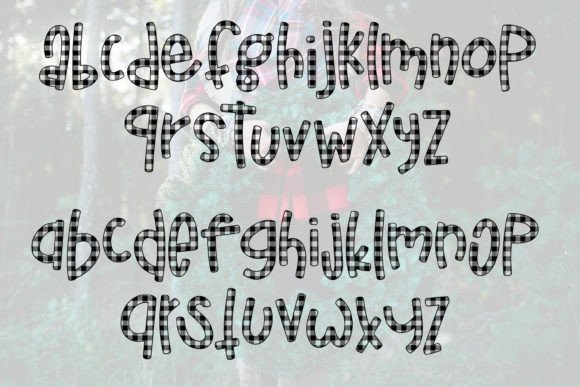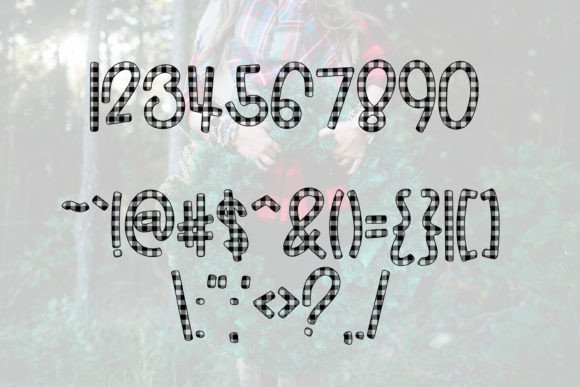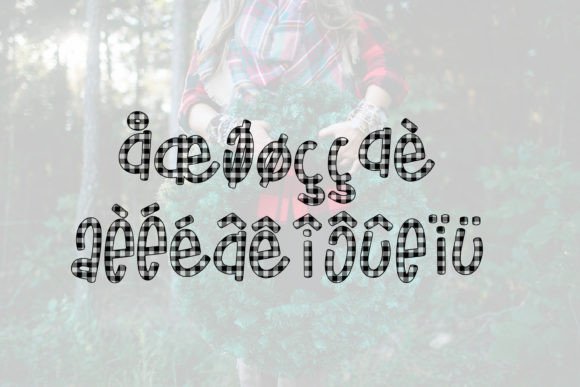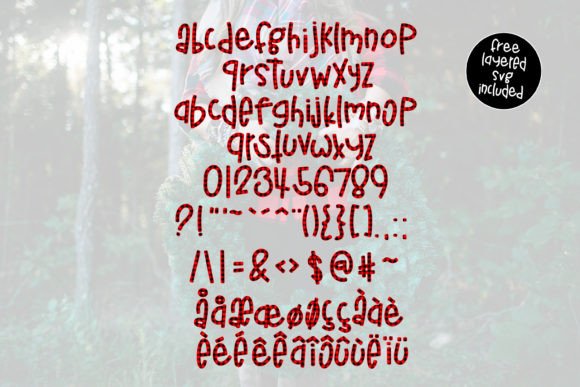
Introducing Buffalo Jane Font: The Ultimate Plaid Companion for Designers and Crafters
Are you ready to add a touch of rustic charm to your designs? Look no further than Buffalo Jane, a delightful plaid font that embodies the warmth and coziness of the great outdoors. Inspired by classic buffalo plaid patterns, this charming font is perfect for winter projects, holiday designs, and anything that needs a dash of festive flair.
The Story Behind Buffalo Jane
Buffalo Jane is more than just a font – it’s an experience. Imagine wrapping up on a cold winter night, surrounded by the warmth and comfort of a crackling fireplace. The buffalo plaid pattern, a timeless classic, has been reimagined as a playful font that’s sure to bring a smile to your face. With Buffalo Jane, you can infuse your designs with the spirit of the season, adding a touch of whimsy and personality to your work.
What Makes Buffalo Jane So Special?
So, what sets Buffalo Jane apart from other fonts? Here are just a few reasons why designers and crafters are falling in love with this charming plaid font:
• Unique Plaid Pattern: Buffalo Jane features a distinctive buffalo plaid pattern that’s both classic and modern. The font’s design is carefully crafted to evoke the feeling of warmth and coziness, making it perfect for winter and holiday-themed projects.
• Playful and Festive: This font is designed to bring a touch of playfulness and festivity to your designs. Whether you’re creating holiday cards, apparel, or craft projects, Buffalo Jane is sure to add a dash of personality and whimsy.
• Rustic Charm: Buffalo Jane has a distinctly rustic feel that’s perfect for designers and crafters who love the great outdoors. The font’s rugged, homespun quality makes it ideal for projects that require a touch of country charm.
• Versatile: Buffalo Jane is incredibly versatile, making it suitable for a wide range of projects. From holiday designs to winter-themed crafts, this font can be used to add a touch of personality to your work.
Using Buffalo Jane in Your Designs
So, how can you use Buffalo Jane in your designs? The possibilities are endless! Here are a few ideas to get you started:
• Holiday Cards: Add a touch of festive flair to your holiday cards with Buffalo Jane. The font’s playful plaid pattern is perfect for Christmas, Hanukkah, or any other winter holiday.
• Apparel: Buffalo Jane is a great choice for designing apparel, such as t-shirts, hoodies, or hats. The font’s rustic charm and playful personality make it perfect for winter-themed designs.
• Craft Projects: If you’re a crafter, Buffalo Jane is a great addition to your design toolkit. Use the font to add a touch of personality to your craft projects, such as knitting patterns, sewing projects, or scrapbooking.
• Winter-themed Designs: Buffalo Jane is perfect for any winter-themed design project, from snowflakes to winter landscapes. The font’s plaid pattern and rustic charm make it a great choice for adding a touch of warmth and coziness to your work.
Tips and Tricks for Getting the Most Out of Buffalo Jane
Here are a few tips and tricks for getting the most out of Buffalo Jane:
• Experiment with Colors: Buffalo Jane looks great in a variety of colors, from traditional red and black to more modern color combinations. Experiment with different colors to find the perfect look for your project.
• Mix and Match: Don’t be afraid to mix and match Buffalo Jane with other fonts and design elements. The font’s playful personality and rustic charm make it a great choice for pairing with other design elements.
• Use it Sparingly: While Buffalo Jane is a beautiful font, it can be overwhelming if used too much. Use it sparingly to add a touch of personality to your designs, rather than overwhelming them.
In conclusion, Buffalo Jane is a charming and rugged plaid font that’s perfect for designers and crafters who love the great outdoors. With its unique plaid pattern, playful personality, and rustic charm, this font is sure to bring warmth and character to your work. Whether you’re designing holiday cards, apparel, or craft projects, Buffalo Jane is the perfect choice for adding a touch of festive flair to your designs.